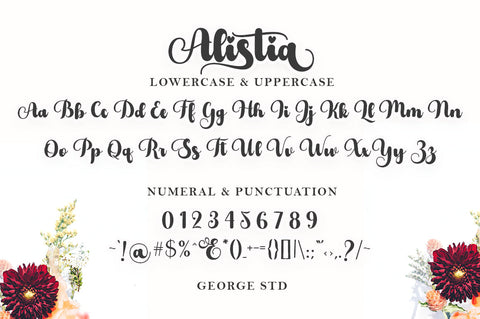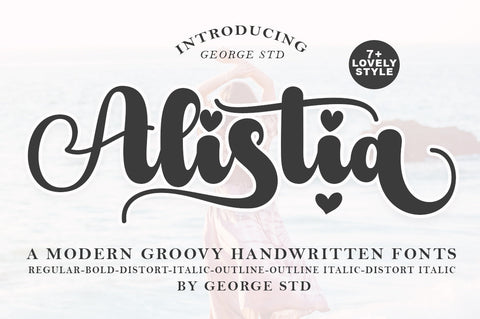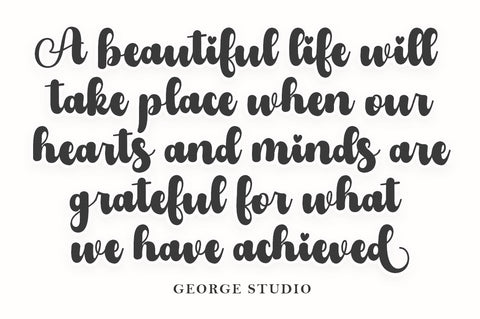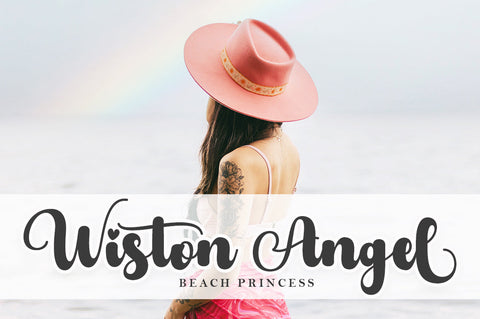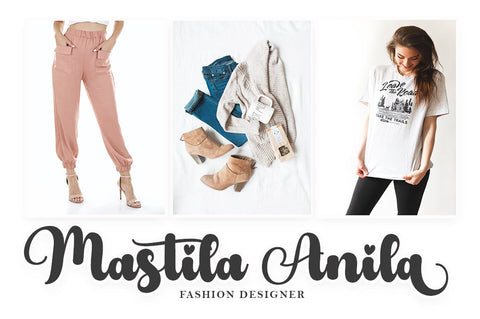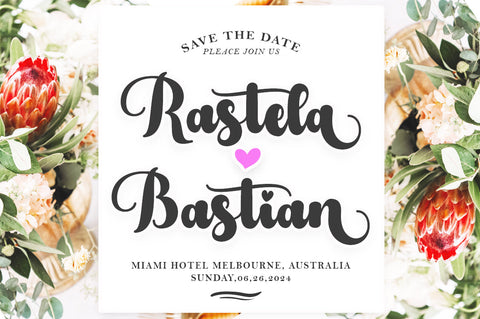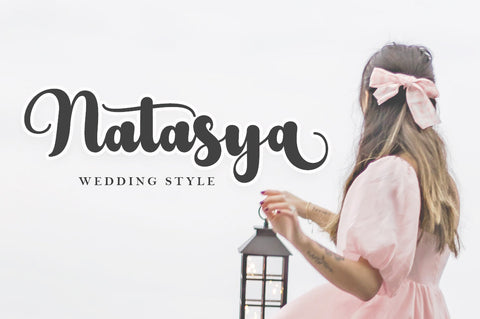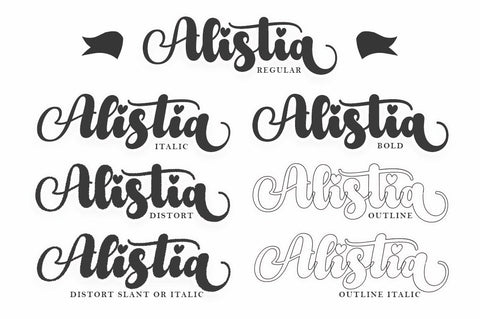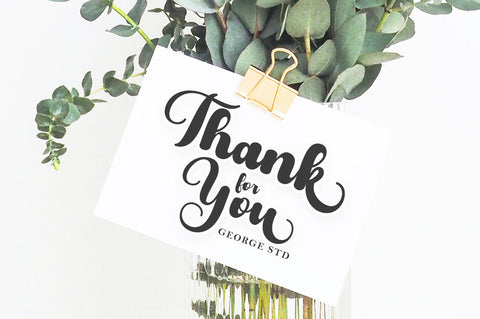
Alistia
Alistia script is an elegant combination of scripts. It's bold, feminine and classy, while still maintaining a friendly feel.
Alistia consists of 7+more lovely stayles.
Alistia script is versatile and will work perfectly for any ecommerce brand, wedding boutique, business card startup or any business that wants to look luxurious and elegant. With many variants of style characters
Alistia script is perfect for creating original and functional designs. It has extensive language support and alternatives, a set of styles that add visual interest to each letter.
You can use Alistia scripts for high-end magazine types of logos and titles, but don't forget greeting cards, invitations, posters, advertisements, and various web and screen uses. The overall feel of the font is elegant, sophisticated with an informal touch and is ideal if you want to convey a sense of class and style.